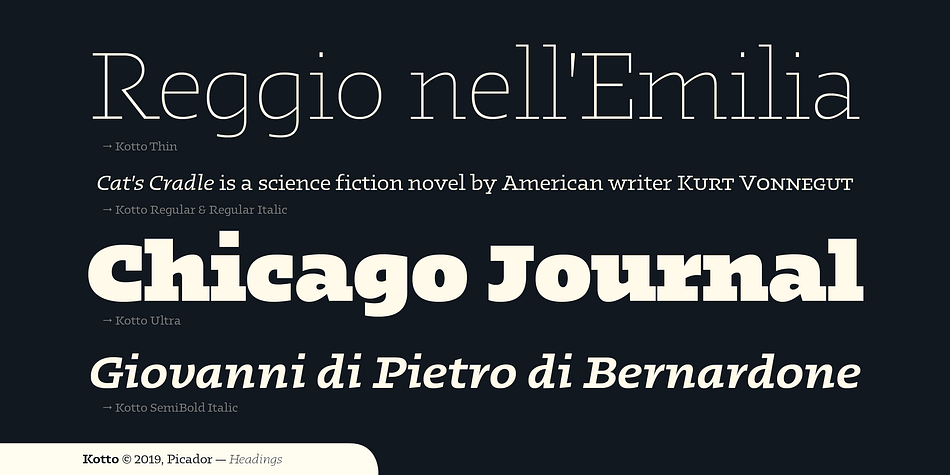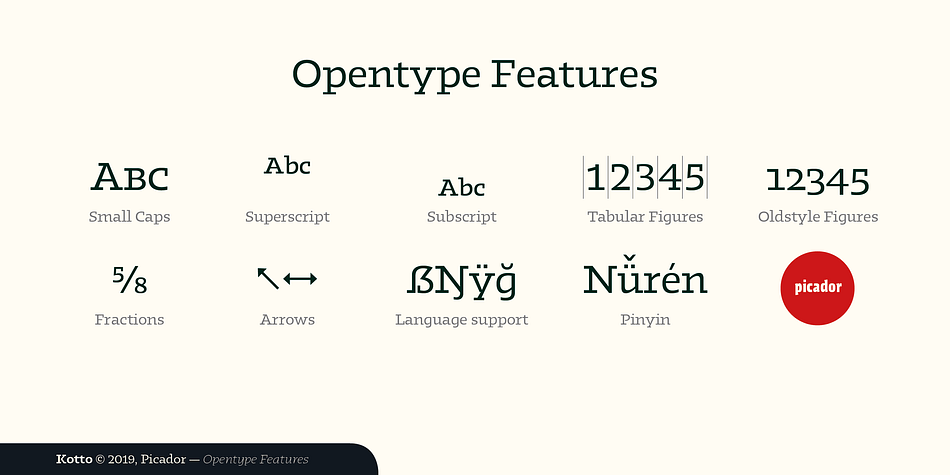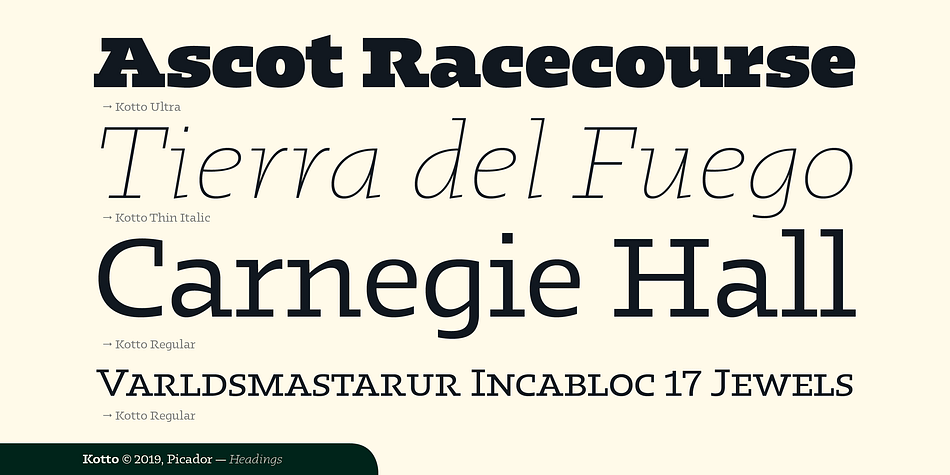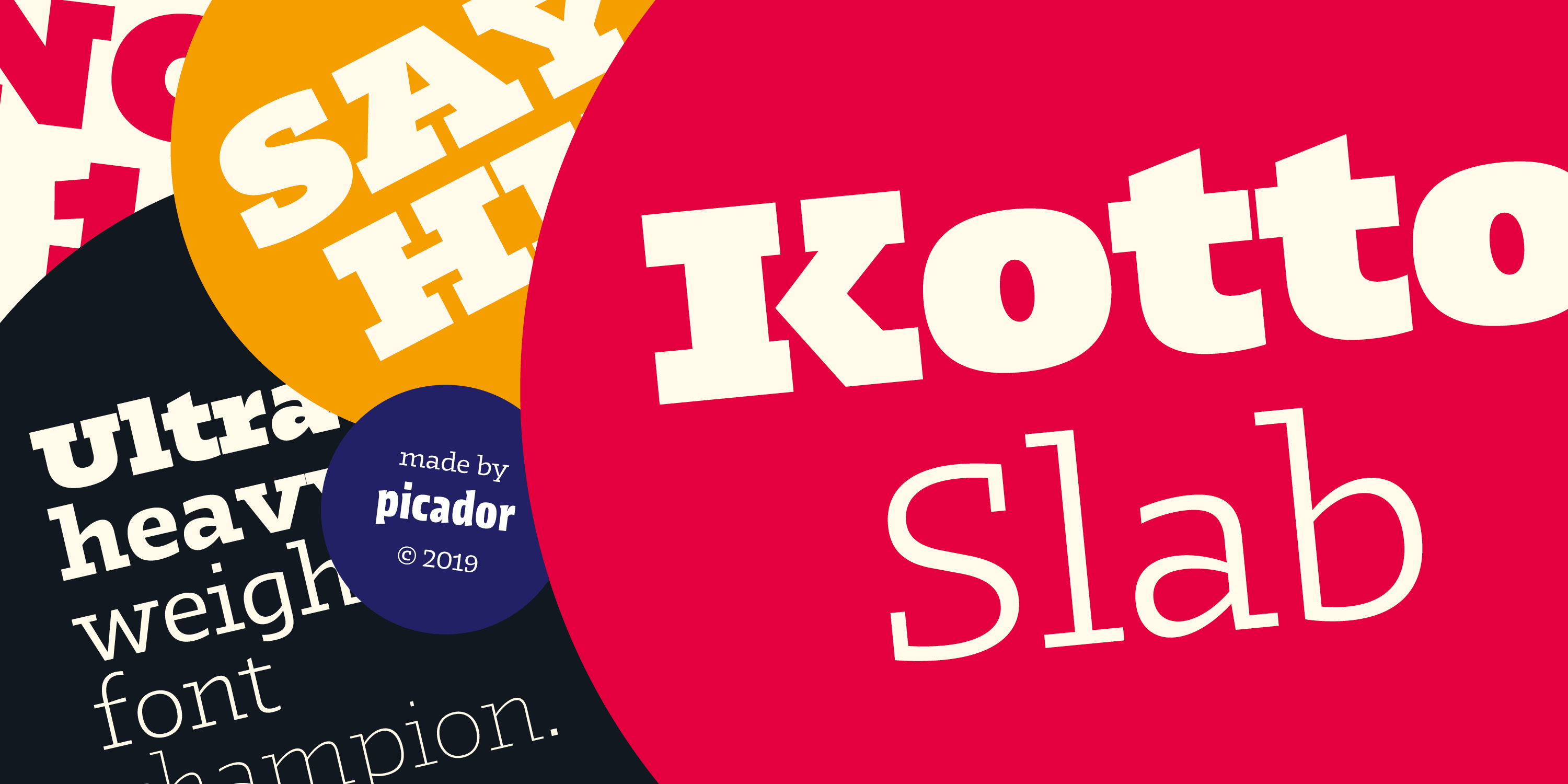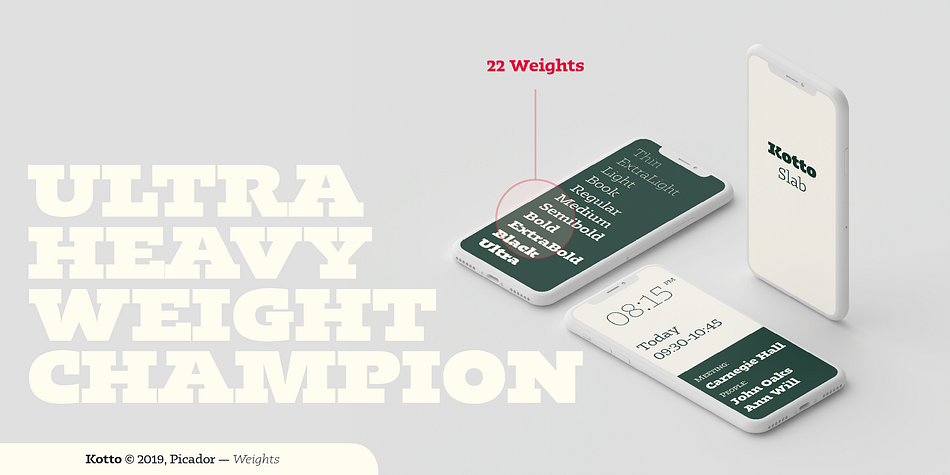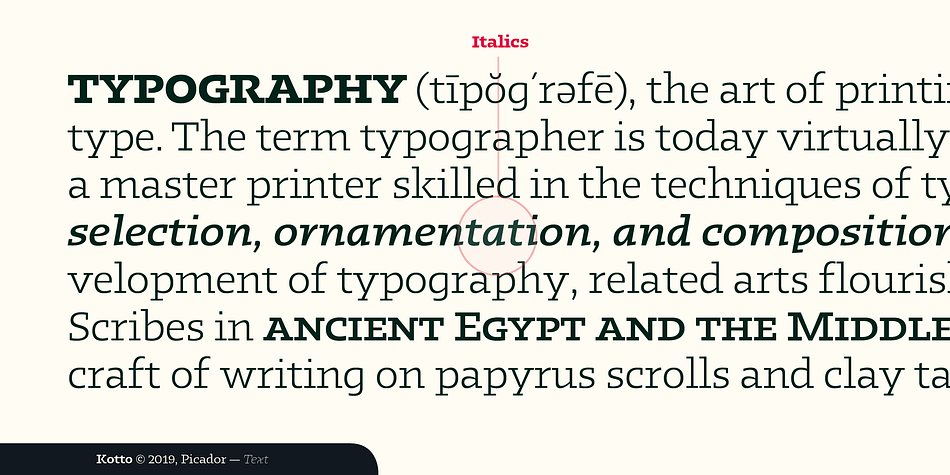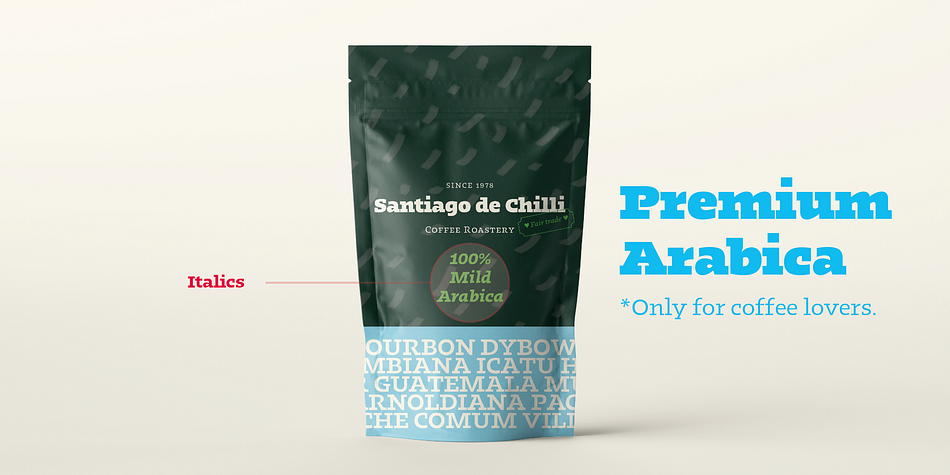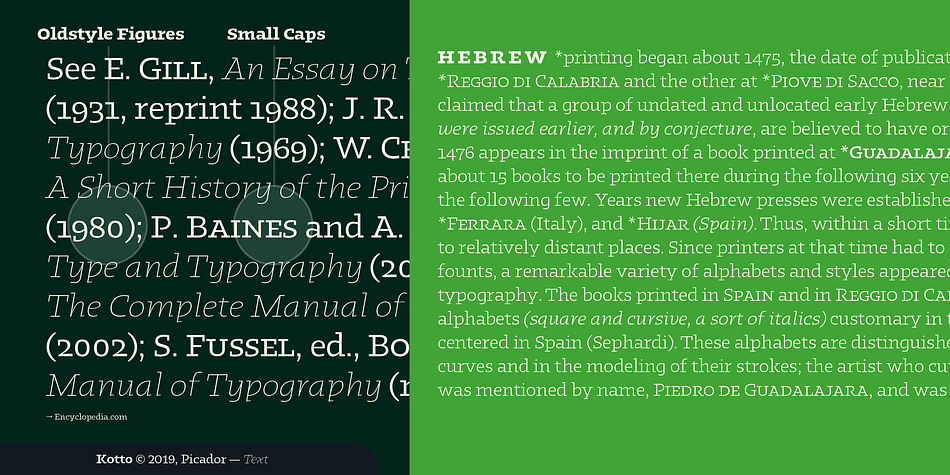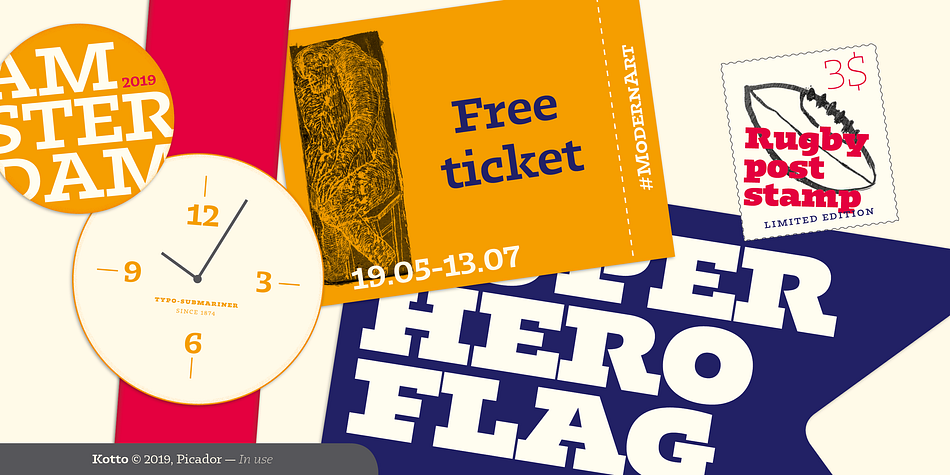
Designed by Maciej Włoczewski, Kotto Slab is a slab serif font family. This typeface has twenty-two styles and was published by Maciej Włoczewski.
Ultra Heavy Weight Font Champion – that’s Kotto Slab. Bold curves and catchy endings. You can always count on Kotto – quirky posters, creative projects or long texts. That doesn’t matter. Easy to use and easy to pair with other typefaces. Matching italics and opentype features will make your work faster. Try it with sans and serif fonts, especially with Praho Pro – you won’t regret it.